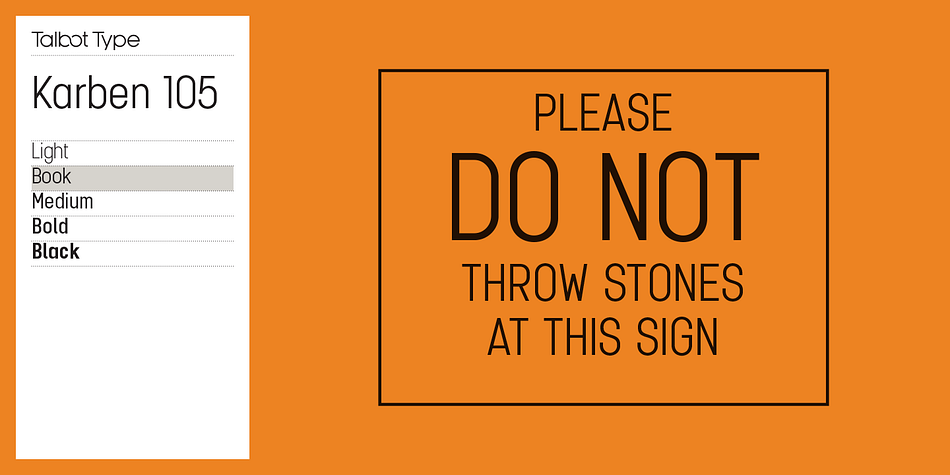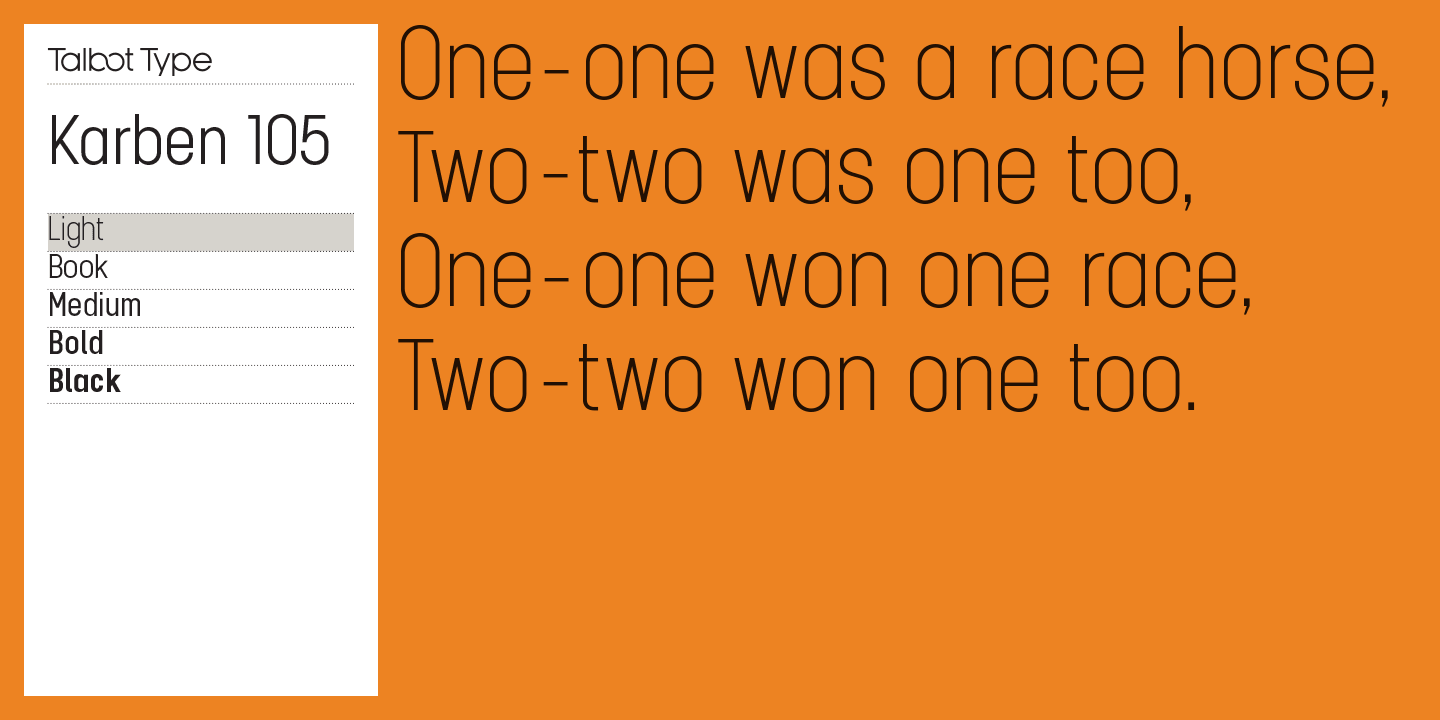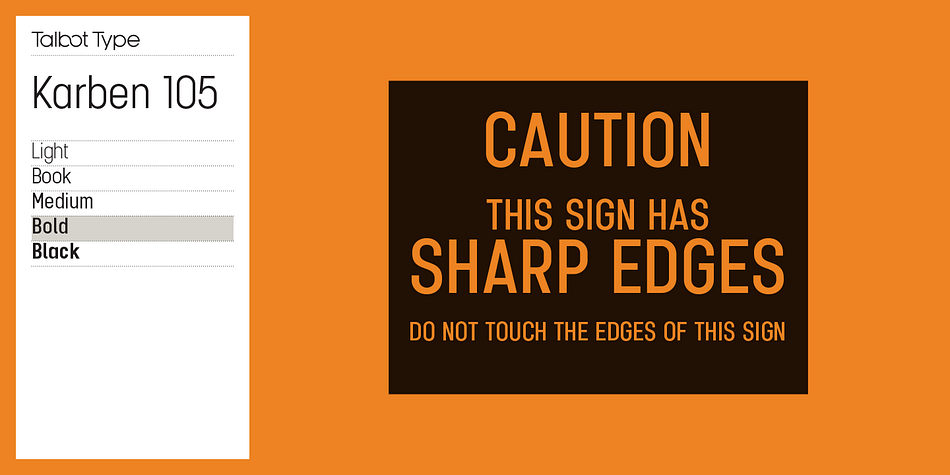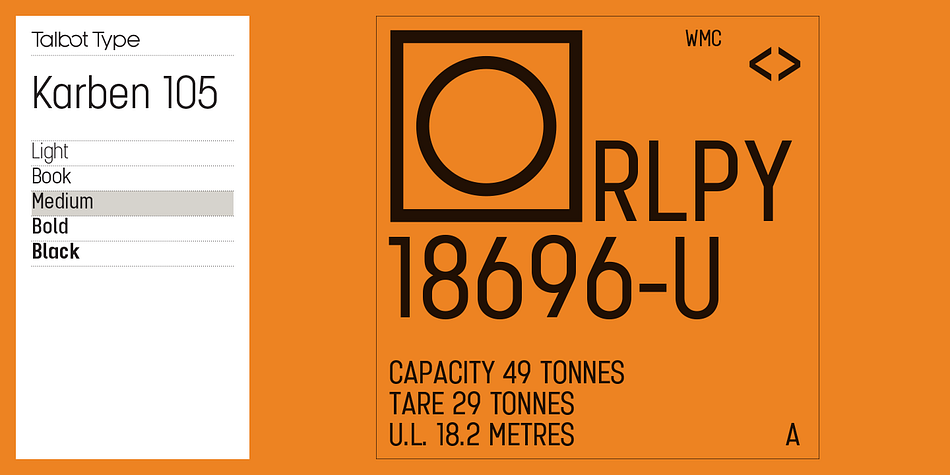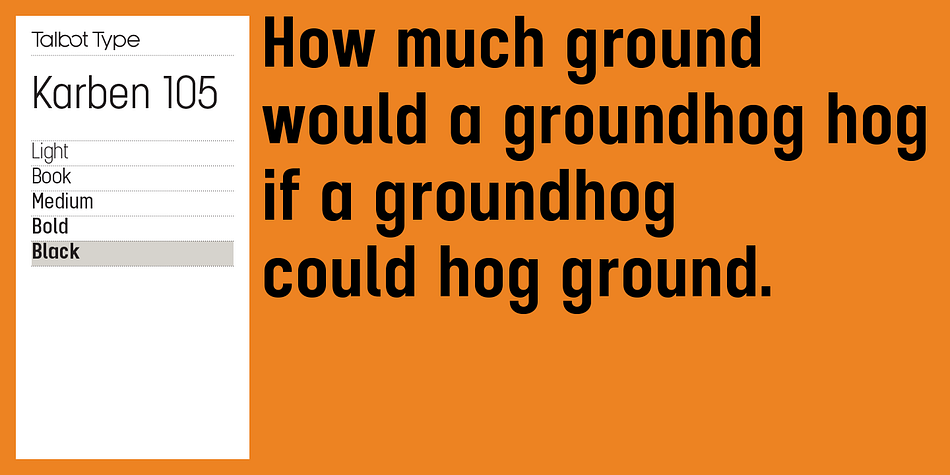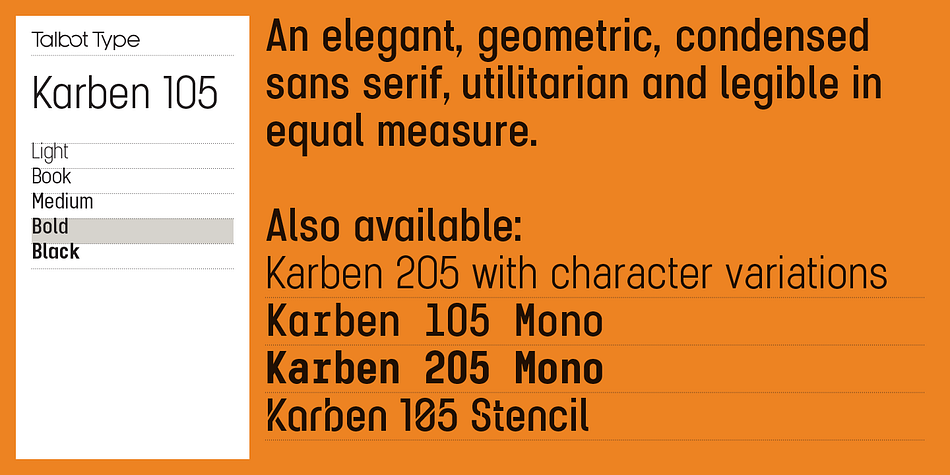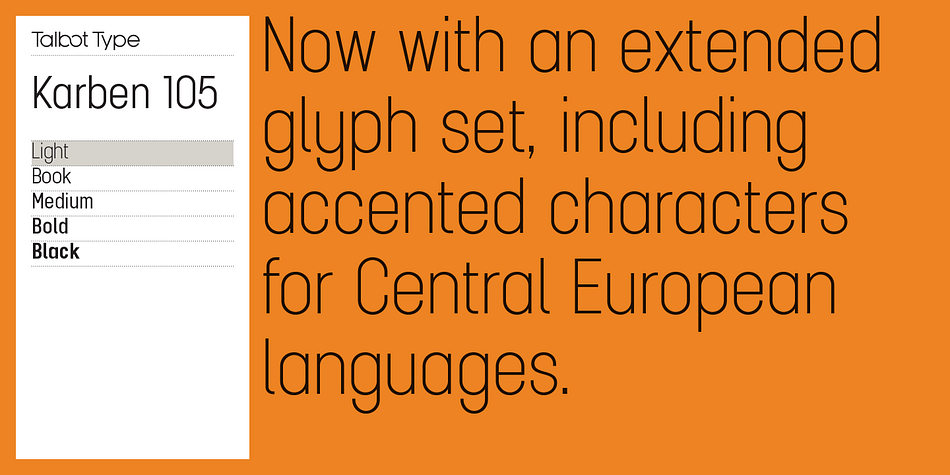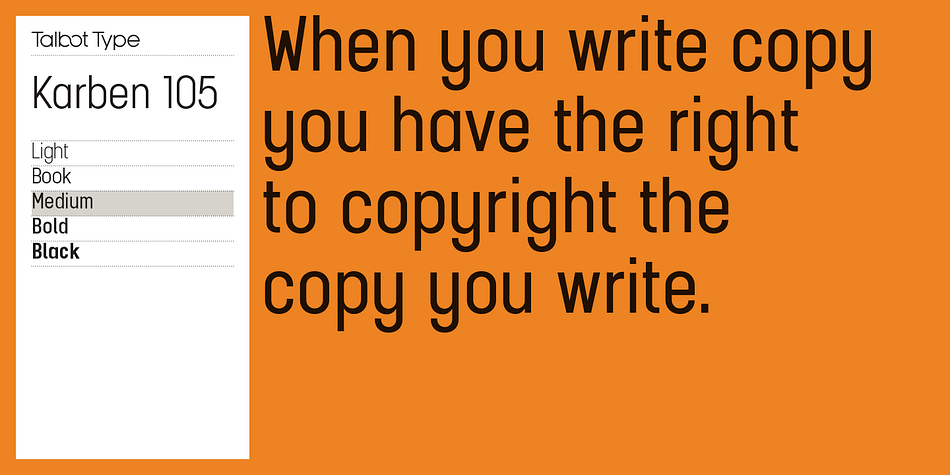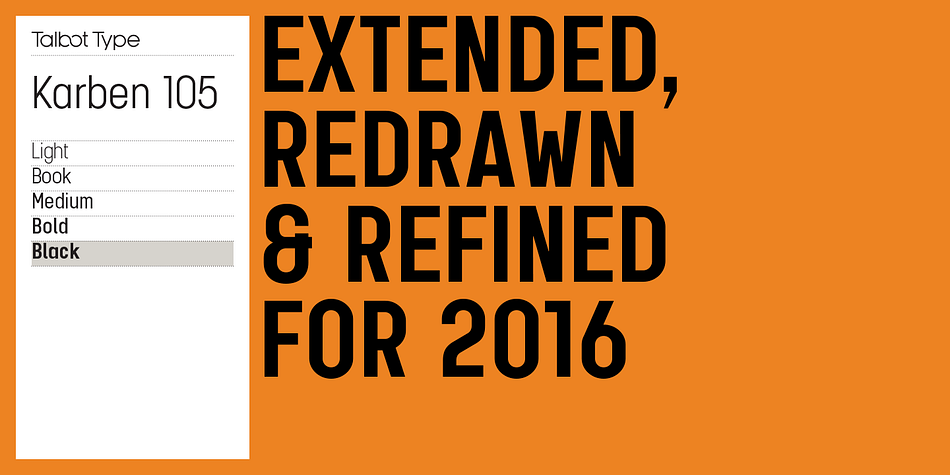
Karben 105 is a sans serif font family. This typeface has ten styles and was published by Talbot Type.
Karben 105 is inspired by the classic, no nonsense DIN, and has a form that follows its highly legible function. Based on a lozenge, it has a clean and pure geometry with even stroke weights.
Karben 105 is available in a family of five weights, and is also available with character variations as Karben 205. There are also monospaced variants of both Karben 105 and Karben 205 and a stencil version.
All of the Karben fonts feature an extended character set, including accented characters for Central European languages.